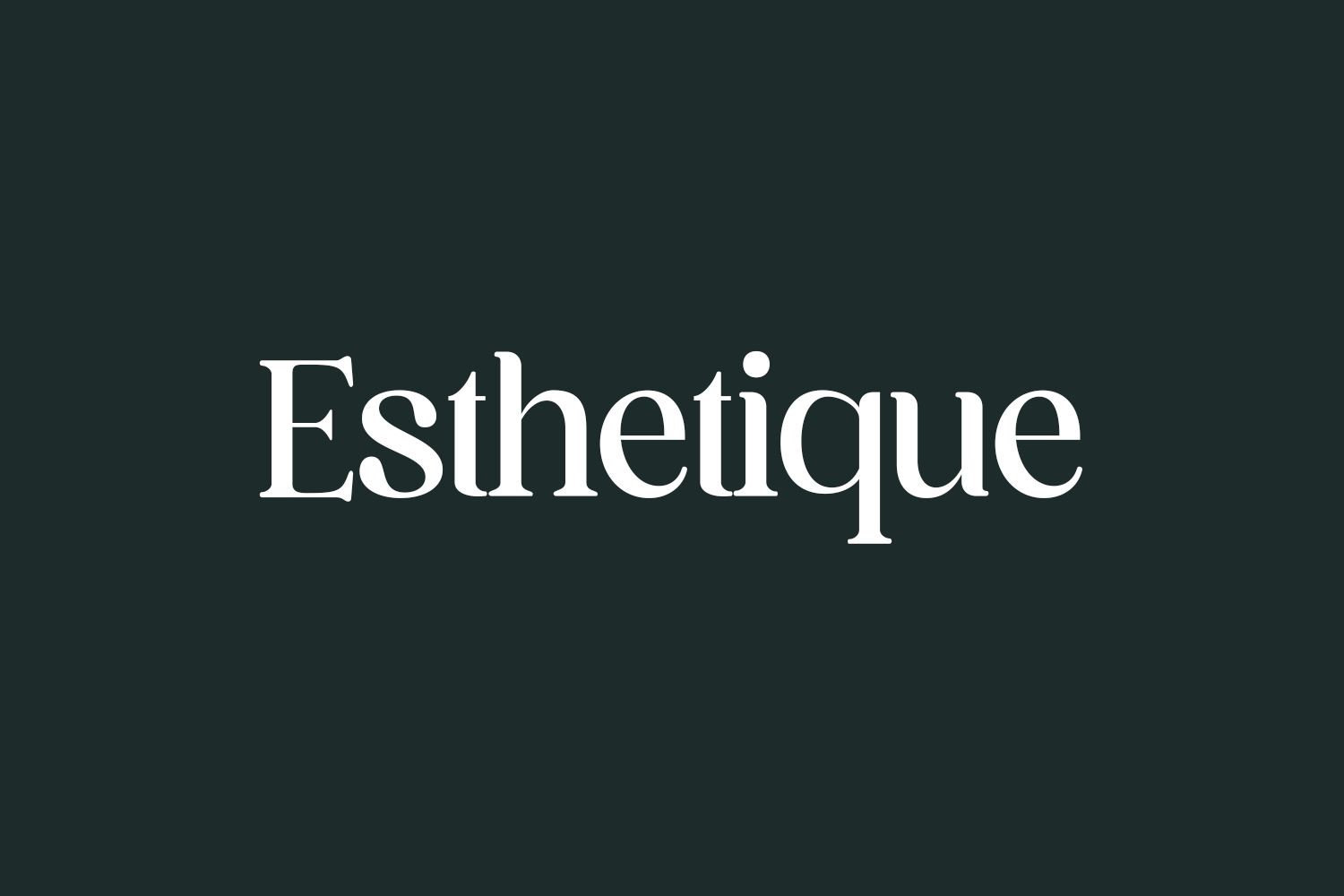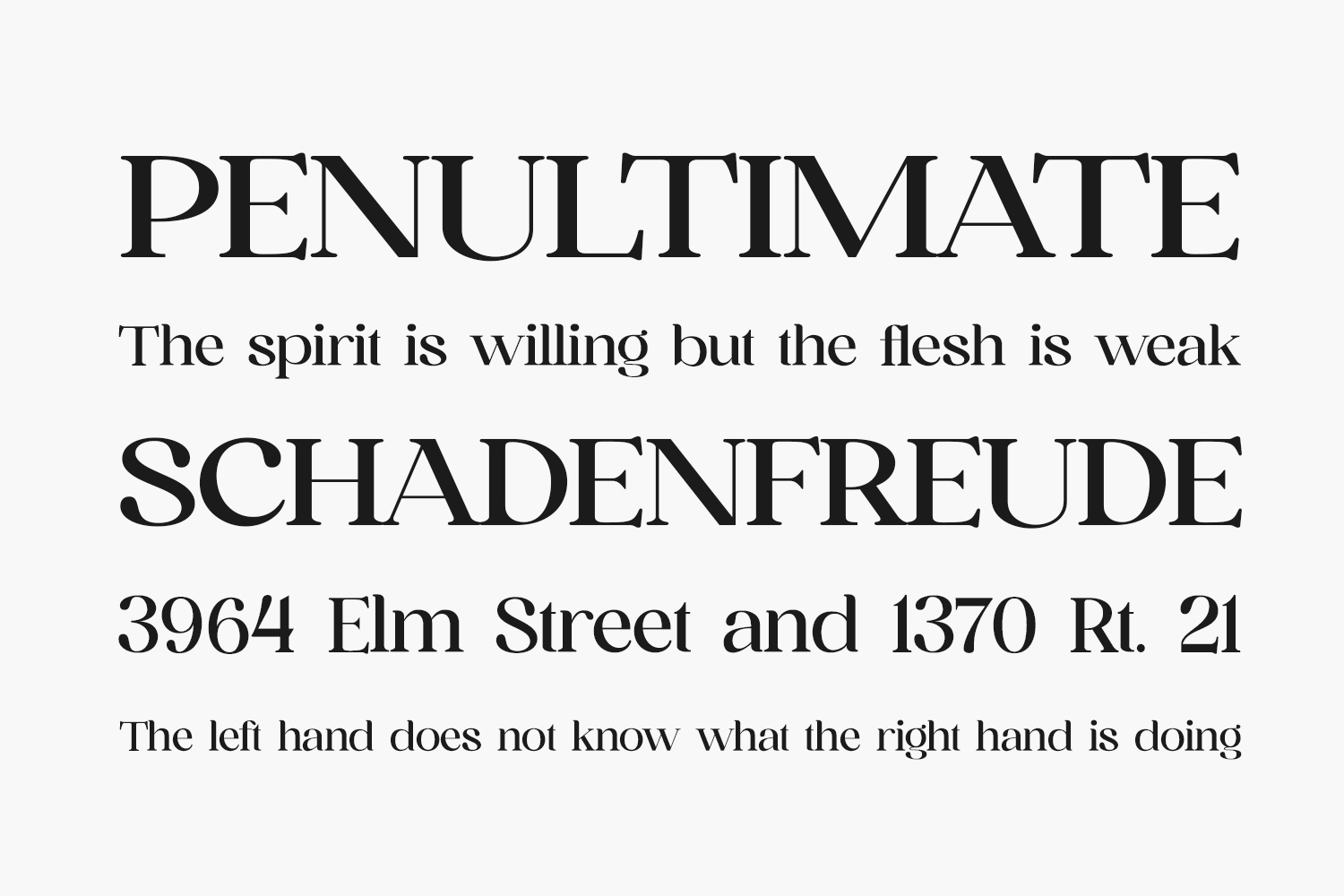
Introducing the Estethique Free Font – this unique and modern sans serif font is the perfect choice for designers and artists who want to create elegant and luxurious logos, book or movie title designs, fashion brands, magazines, clothing, fonts, quotes, and much more. Its timeless and elegant design will impress your clients and leave a lasting impression.